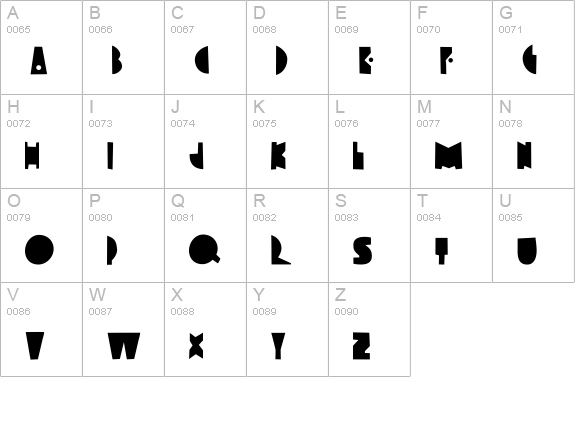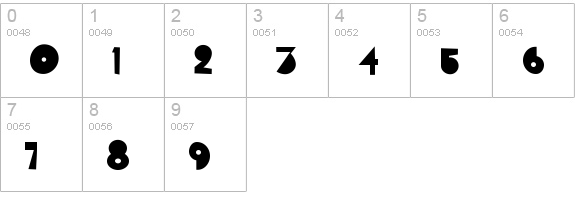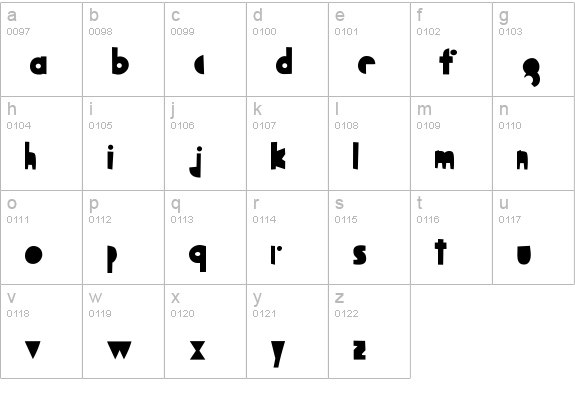
BagaglioFlat font is a beautiful and versatile typeface that exudes modern elegance and sophistication. With its clean lines and sleek design, this font is perfect for a wide range of design projects, from branding to packaging to web design. The rounded edges and balanced proportions of BagaglioFlat give it a friendly and approachable feel, making it a great choice for conveying a sense of warmth and creativity. What sets BagaglioFlat apart is that it is available for free download at FontsMarket.com. This means that designers and creatives can easily access this high-quality font without any cost, allowing them to elevate their projects with a touch of class and style. Whether you're working on a personal project or a client commission, BagaglioFlat is a versatile and reliable font that will help you achieve a polished and professional look. Download BagaglioFlat today from FontsMarket.com and add a touch of sophistication to your design work with this stunning and free-to-use typeface.